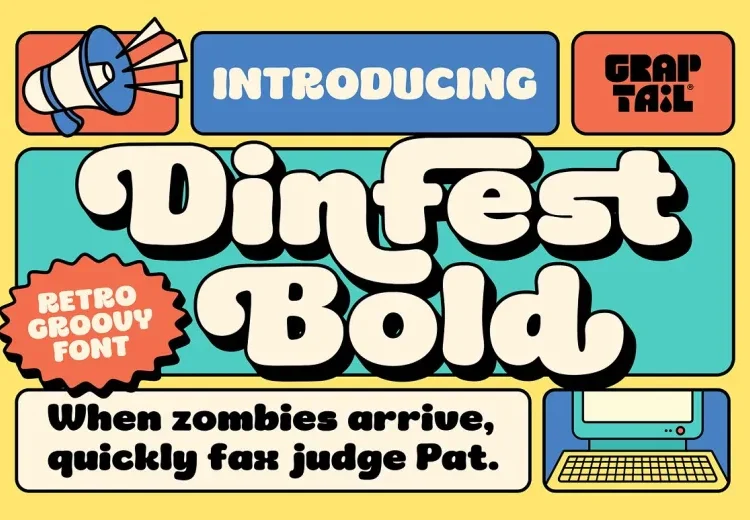
Dinfest Bold Font
Dinfest Bold is a striking display font that channels the nostalgic charm of the 1950s to 1990s. With its retro-inspired design, this font is ideal for projects that aim to evoke a sense of vintage flair and personality.
Key Features:
• Retro Appeal: Perfect for bringing a touch of mid-century to late-century nostalgia to your designs, making it ideal for vintage-themed projects.
• Unique Design:
• Curved Corners: Soft, rounded edges give Dinfest Bold a friendly and approachable look.
• Distinct Letter Shapes: Unique character design adds to the retro aesthetic.
• Versatile Characters: Includes a range of alternative characters and ligatures, allowing for creative variations and custom looks within the same font family.
• Perfect for Vintage Projects:
• Designs: Create eye-catching vintage posters, advertisements, and branding materials.
• Themed Projects: Great for retro-themed events, merchandise, or nostalgic visual content.